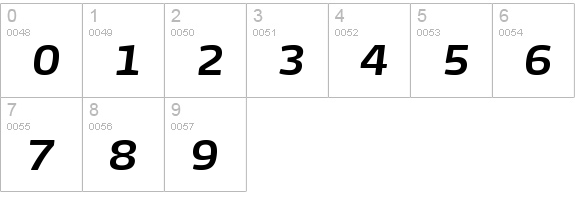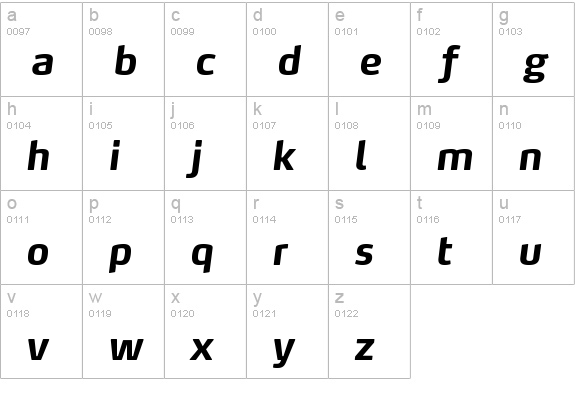
MaxTF-BoldItalic Font Details
Experience the bold and dynamic personality of MaxTF-BoldItalic font, a stunning typeface designed to make a statement. Its unique combination of strong lines and elegant curves creates a striking visual impact, perfect for headlines, posters, and branding materials. The italicized style adds a touch of sophistication and flair, making your text stand out with a modern twist. MaxTF-BoldItalic font is not only visually captivating but also versatile, suitable for a wide range of design projects. Whether you're working on a website, magazine layout, or advertising campaign, this font will add a touch of creativity and professionalism to your work. Best of all, MaxTF-BoldItalic font is available for free download at FontsMarket.com. Now you can enhance your designs with this exceptional typeface without any cost, making it accessible to designers of all levels. Don't miss out on the opportunity to elevate your projects with the bold and italic beauty of MaxTF-BoldItalic font.